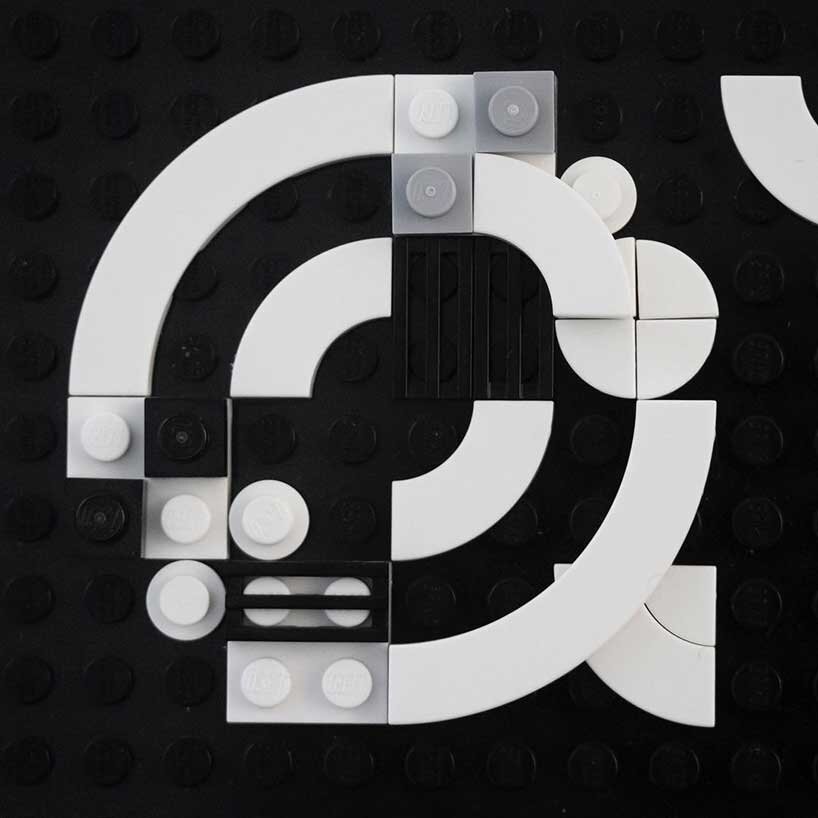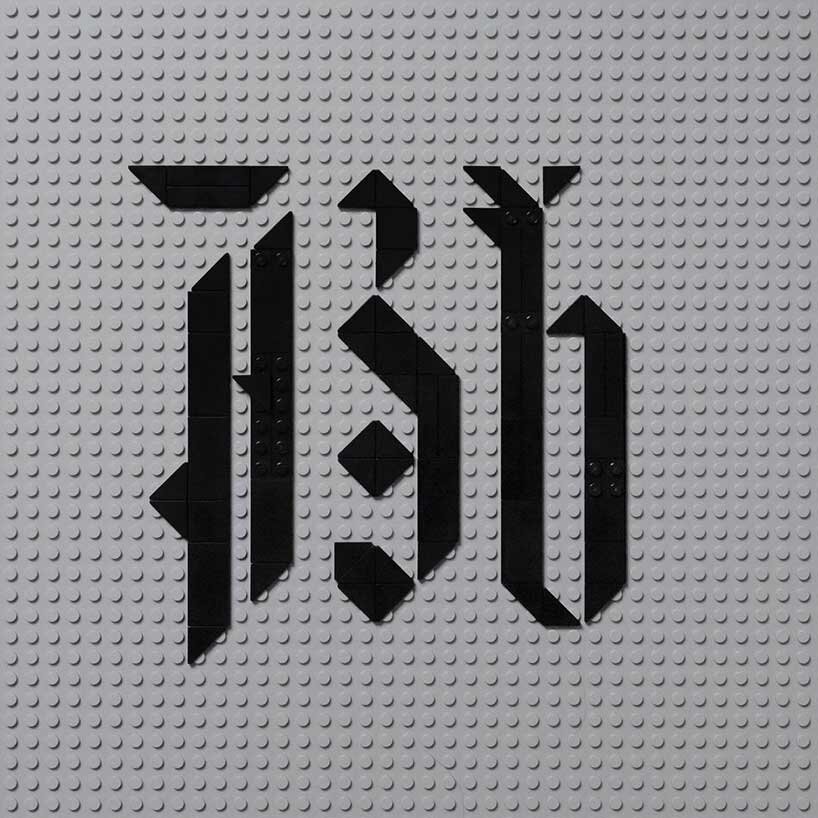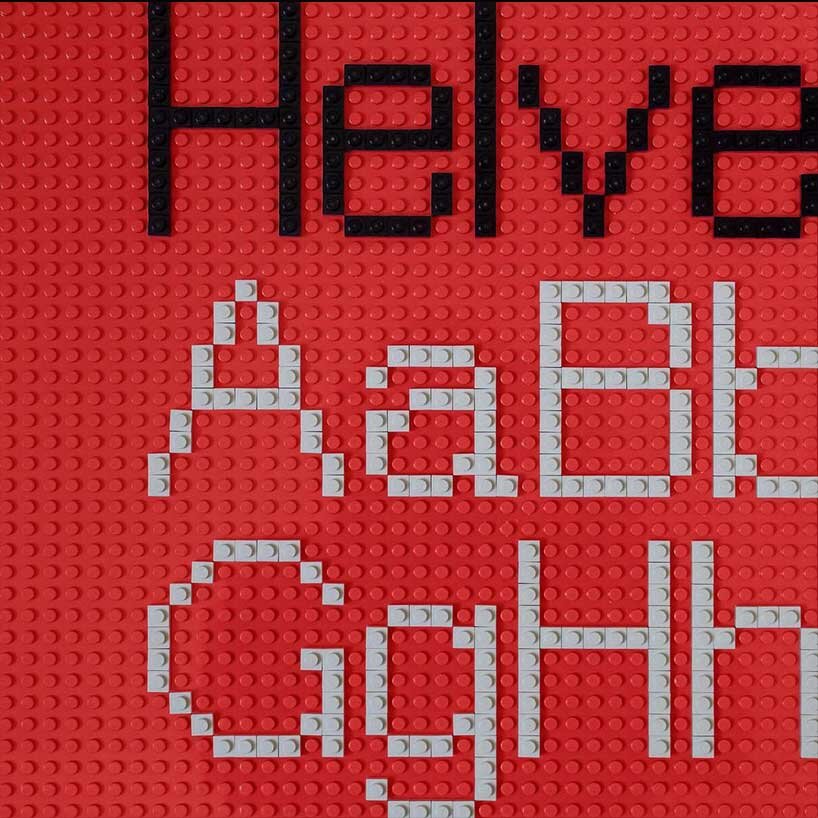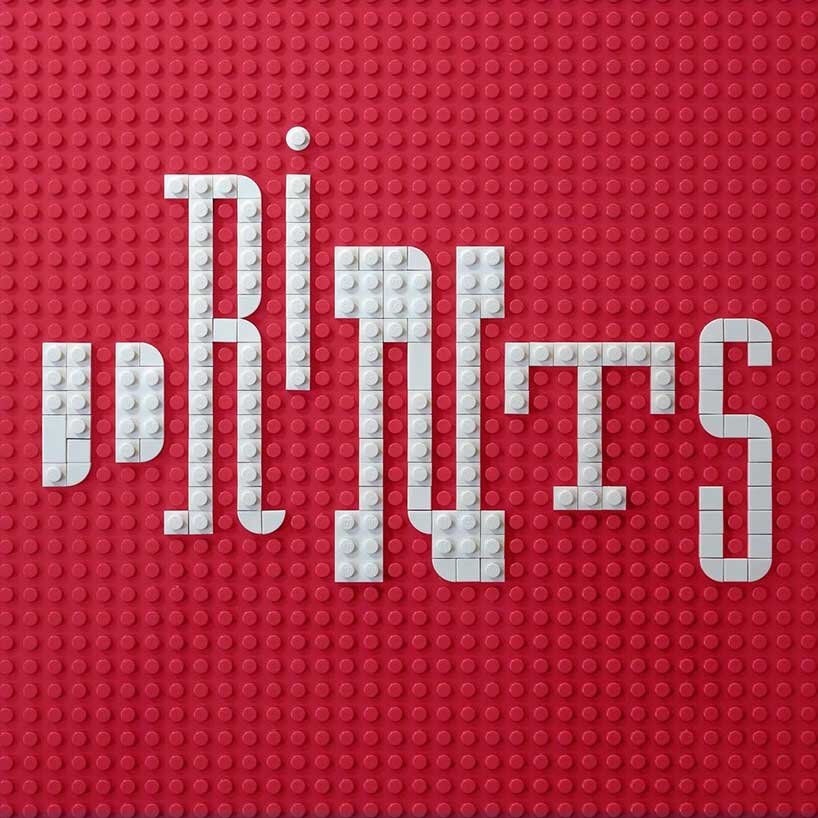
‘brik font’ by craig ward is an intricate typography series made of LEGO bricks
'can LEGO be an effective medium for typography?'
‘can Lego be an effective medium for typography?’
following his fondness for modular-type design, the designer, creative director, and author craig ward, unveils an intricate typography series made of LEGO bricks. through his latest project dubbed ‘brik font’, the artist explores the limitations of typeface design, adding a whimsical touch to regular letters. some typefaces from the ‘brik font’ series consist of a thin, curved design while others a bold, stencil-like style. the british-born artist also plays with rounded and curved bricks and other times he gives the impression of rasterized results.
‘creativity thrives on restriction, and the LEGO building system is a testament to that. very few things have yet to be created in LEGO in some way, but the nuances of type design tend to be compromised,’ he mentioned.
exploring the nuance of type design
each of craig ward‘s pioneering typographic works is described with a short caption, that shows the references of the specific type of design. ‘I’m not 100% sure about what constitutes success in this undertaking — whether it’s type that overcomes the limitations of the medium or whether it’s type that embraces them. resolution is always going to be an issue when dealing with subtle curves, I’ve played with antialiasing type and the results are pretty interesting,’ said craig, tackling this issue by using techniques from computer graphics in an analog environment.
as he mentioned in an instagram post, ‘part of the idea behind this project is to create new modular typefaces, the templates for which I’ll be selling as downloadable PDFs through an etsy store for like the price of a coffee or something. this is one of my first: a 5 line condensed stencil alphabet, 55 characters in all: a-z, 0-9 and some punctuation’.